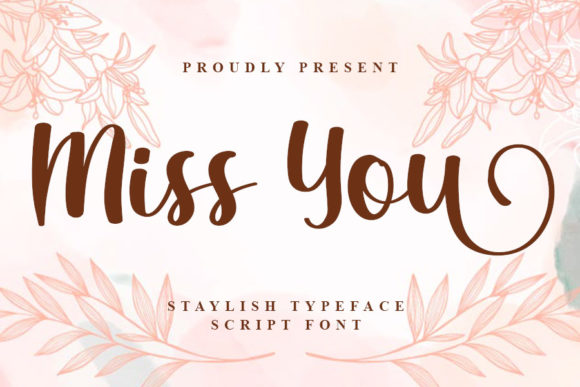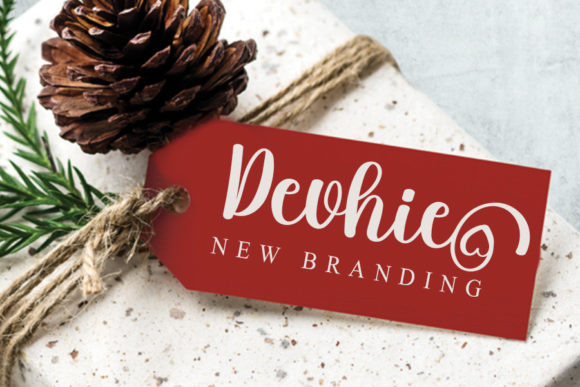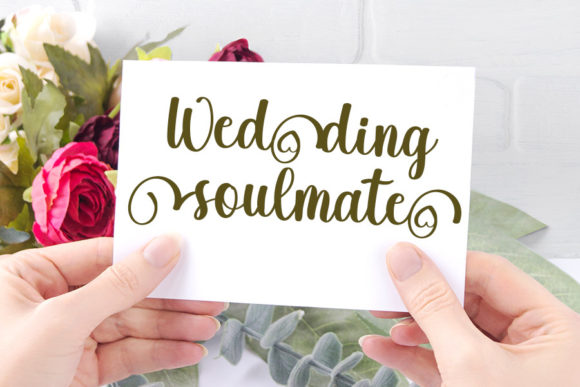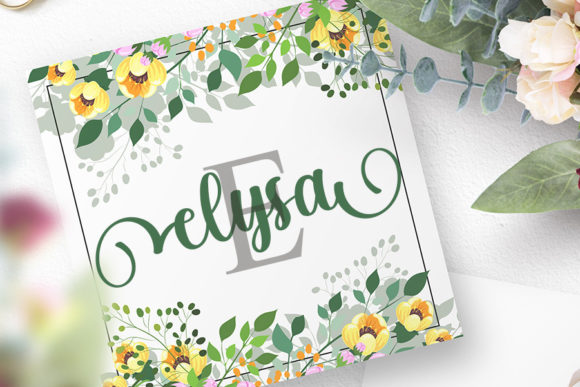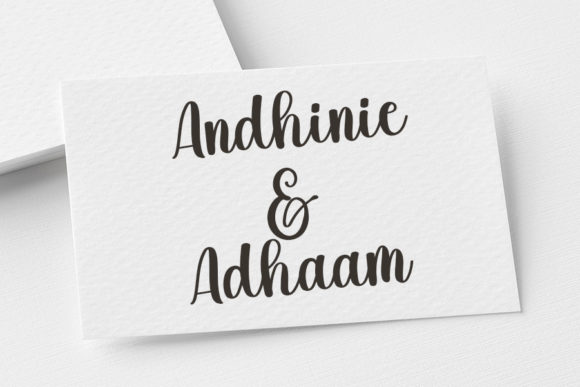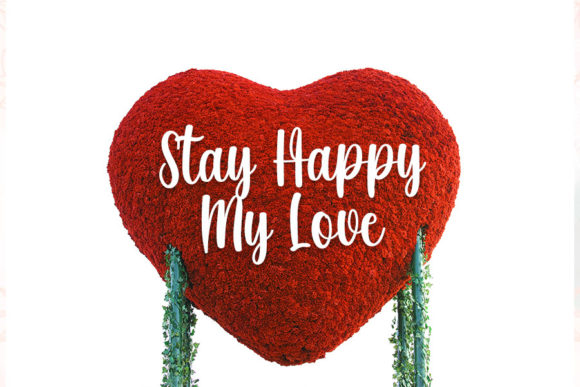
Miss You Font
About Miss You Font
Miss You is a dazzling and highly detailed handwritten font. It will add a luxury spark to any design project that you wish to create! This font is PUA encoded which means you can access all of the amazing glyphs and ligatures with ease!